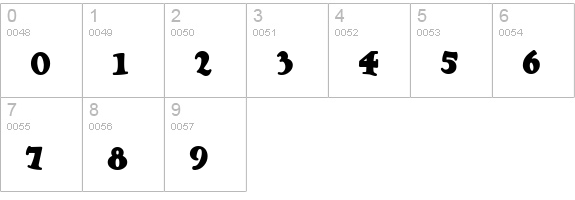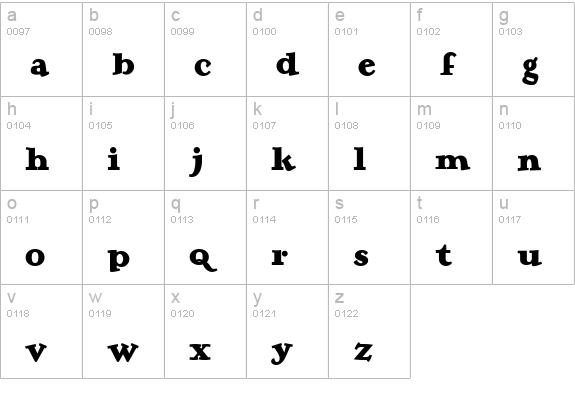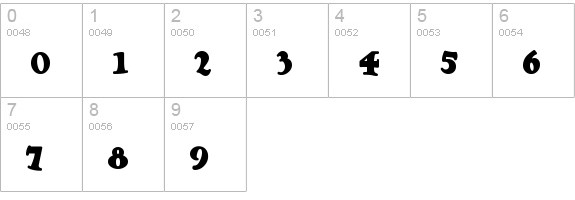
Introducing the Whoopee Cushion SW font, a playful and whimsical typeface that will bring joy and laughter to any design project. This font captures the essence of fun and mischief, with its curvy and bouncy letterforms that resemble the iconic whoopee cushion. Designed with a lighthearted approach, the Whoopee Cushion SW font is perfect for adding a humorous touch to various creative endeavors. Whether you're designing invitations for a prank-filled party, creating hilarious social media graphics, or crafting amusing posters, this font will surely make a statement and elicit smiles from your audience. What makes the Whoopee Cushion SW font even more delightful is that it is freely available to download at FontsMarket.com. Yes, you heard it right, this font can be yours without spending a dime! Embrace the spirit of generosity and spread laughter by incorporating this font into your designs without any cost. Featuring a wide range of glyphs, including uppercase and lowercase letters, numbers, punctuation marks, and special characters, the Whoopee Cushion SW font offers versatility and ease of use. Its lively and animated appearance will bring your words to life, making them jump off the page and into the hearts of your viewers. So, why wait? Get ready to infuse your designs with a generous dose of humor and levity by downloading the Whoopee Cushion SW font today, absolutely free at FontsMarket.com. Let your creativity soar and watch as your projects become the talk of the town, all thanks to this delightful and freely accessible typeface.